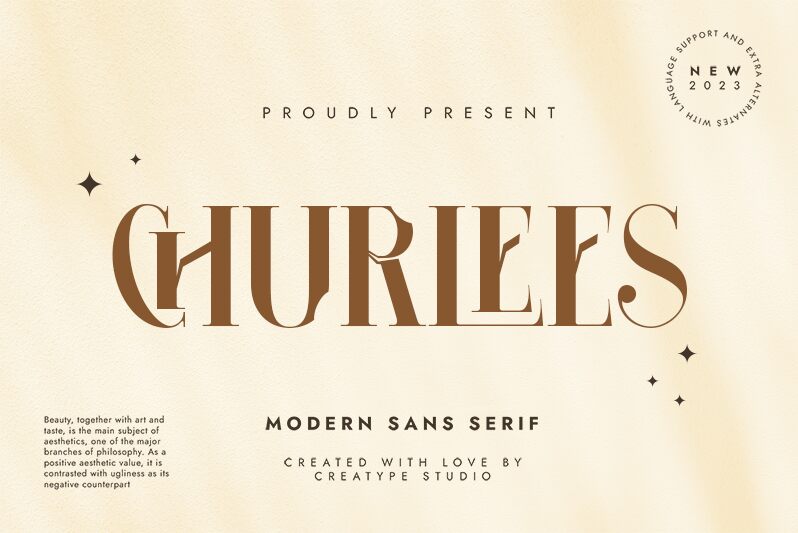
Churlees
Churlees font by Creatype Studio is a retro display style type with a condensed width and elegant-serifed letters. The modern font mixes high-contrast details through thick vertical strokes, thin horizontal lines, short curves, and lightly curled edges. It’s one sophisticated creation with dense letters that communicate a refined aesthetic in titles, headings, and logotypes.
Try Churlees to make your magazine covers and layouts more powerful. Use it for classic books packaging as well as signage inside hotels where all your guests will fall in love with your way of communication. Cards have plenty to gain by using the majestic font: business cards, invitation cards, or menu cards inside restaurants – all will have an appreciated look!